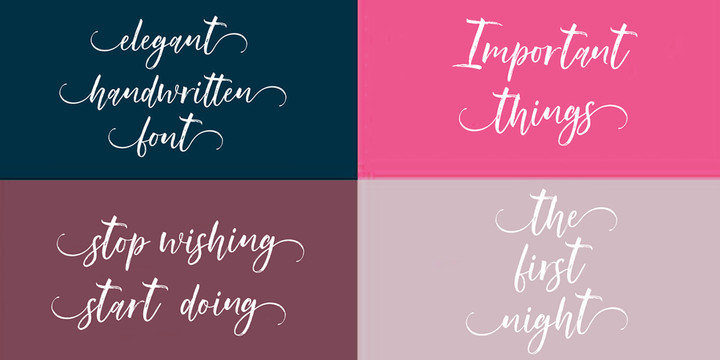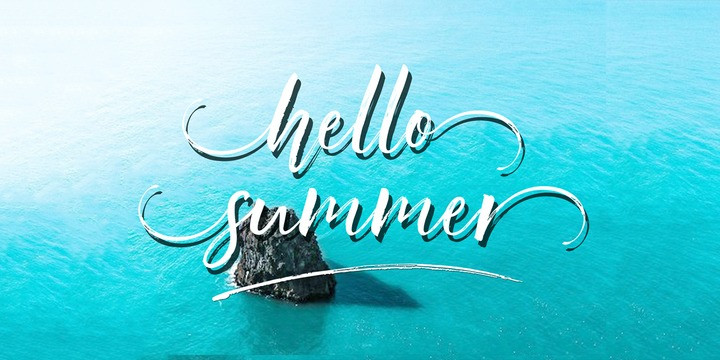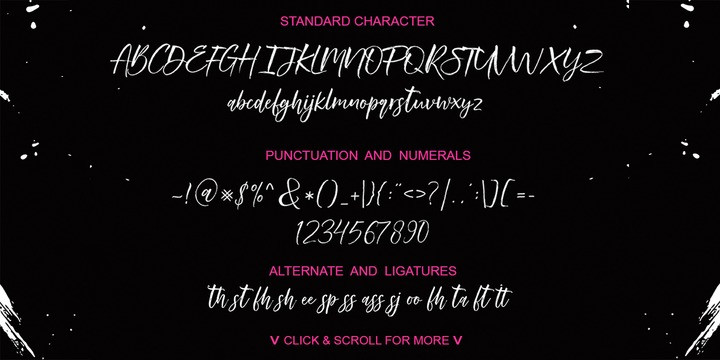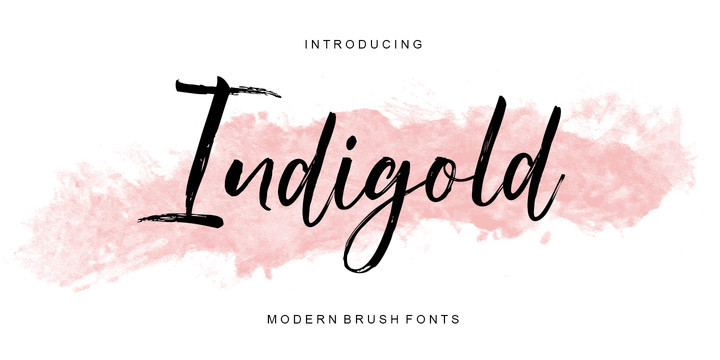
Indigold Script Font
Indigold is a textured brush font, the newly brushed font is very attractive, it also provides several ligatures and additional swashes, as well as a contemporary approach to natural handmade designs with irregular base lines. Suitable for use in title design. Such as clothing, book titles, stationery design, quotation marks, branding, logos, greeting cards, T-shirts, packaging designs, posters, and others. Indigold includes a complete set of upper and lower case letters, as well as multi-language support, numbers, punctuation, ligatures.